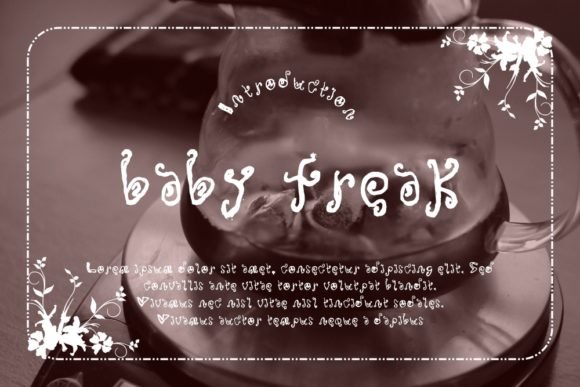
Discover Your Next Design Darling: Baby Freak Font
You know that moment when a spark of creativity hits you, and you can’t wait to bring your idea to life? For designers, this feeling is a regular occurrence, and it’s what drives us to create something truly special. Whether it’s a logo, branding, or a social media post, every project is an opportunity to showcase our unique style and personality.
That’s where the Baby Freak Font comes in – a simple and casual display font that’s perfect for adding a touch of whimsy to your designs. This clean and quirky font is ideal for logos, branding, social media, and crafty DIY projects. With its effortless charm, Baby Freak Font is a valuable addition to any designer’s toolkit, offering endless possibilities for creative expression.
Baby Freak Font Key Features
- Unique Characteristics: Features a playful, cursive script with irregularities and flourishes, adding a touch of whimsy to designs.
Baby Freak Font Review
Overall, I’d say the Baby Freak Font is a quirky and playful addition to any design project. It’s got a certain charm to it that’s hard to deny. ✨ Here are some things that work well:
- Unique character set: The font has some really interesting and expressive characters that can add a lot of personality to your designs.
- Good for titles and headings: The font’s bold and playful feel makes it perfect for titles and headings where you want to grab the reader’s attention.
- Fun for creative projects: The Baby Freak Font is a great choice for creative projects like children’s books, party invitations, or other fun and whimsical designs.
However, there are some limitations to keep in mind: ⚠️
- May not be suitable for formal designs: The font’s playful feel may not be suitable for formal designs like business reports or technical documents.
- Can be overwhelming: The font’s bold and expressive characters can be overwhelming if used too much, so be careful not to overdo it.
- Limited language support: The font may not support all languages or character sets, which could be a problem for international designs.
Overall, I think the Baby Freak Font is a fun and quirky addition to any design project, but it’s not for every project. With careful use, it can add a lot of personality and whimsy to your designs. Just be sure to consider the limitations and use it wisely.
Tips for Getting the Most Out of Baby Freak Font
Use Baby Freak Font for playful and whimsical designs, such as:
- Children’s party invitations
- Baby shower invitations
- Wedding invitations with a playful twist
Remember to pair Baby Freak Font with other playful fonts and design elements to create a cohesive look.
Baby Freak Font is ideal for:
- Designing for children and young adults
- Creating playful and whimsical designs
- Adding a touch of personality to your designs
Alternatives to Baby Freak Font
Great Vibes is a beautiful, handwritten script font perfect for creating a fun and playful atmosphere. It’s ideal for headings, titles, and quotes in designs related to music, art, or travel. Great Vibes is more elegant and sophisticated compared to Baby Freak Font, which is more casual and quirky.
Curry Script
Curry Script is a vintage-inspired font with a unique, handwritten feel. It’s great for creating a nostalgic and retro vibe in designs related to food, fashion, or home decor. Curry Script is more refined and polished compared to Baby Freak Font, which is more edgy and unconventional.